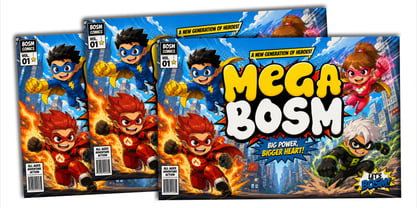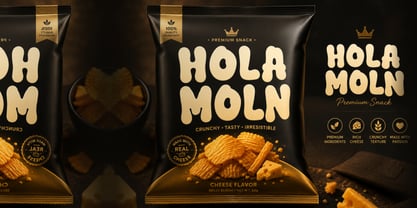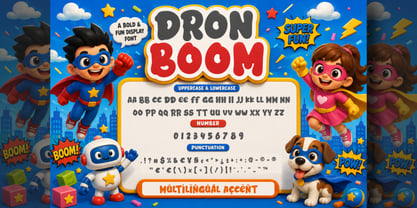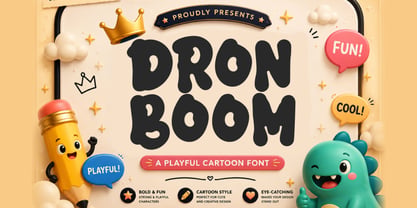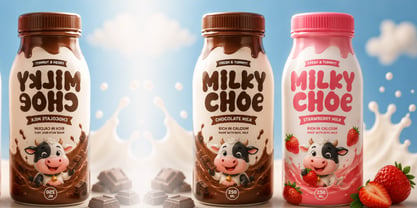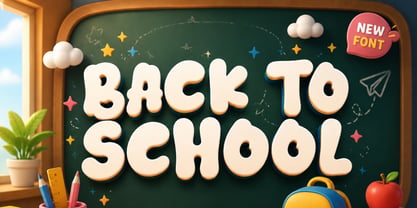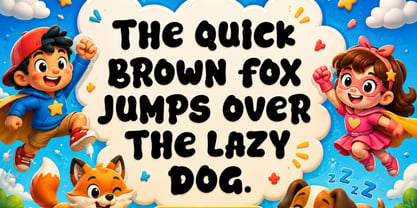
Dron Boom
Dron Boom – Playful Cartoon Font
Dron Boom is a bold Playful Cartoon Font bursting with cheerful personality, chunky letterforms, and irresistible charm. Inspired by animated adventures, children’s storybooks, fun packaging, and playful digital illustrations, this typeface combines soft rounded shapes with a bouncy structure that instantly creates a friendly and energetic visual impact.
Crafted with expressive proportions and smooth organic curves, Dron Boom delivers excellent readability while maintaining a whimsical cartoon appearance. Every character is carefully designed to feel lively, approachable, and full of excitement, making it perfect for designs that need to capture attention with a joyful and imaginative atmosphere.
Its thick playful construction creates a fun, modern, and highly versatile display font suitable for both print and digital media. Whether you’re designing children’s products, educational materials, branding, game titles, YouTube thumbnails, comic covers, or colorful fashion, Dron Boom adds a vibrant cartoon character that makes every project more memorable and engaging.
Key Features :
* Uppercase & Lowercase Characters
* Numerals & Punctuation
* Multilingual Support
* Bold Playful Cartoon Style
* Chunky Rounded Letterforms
* Cute & Friendly Appearance
* Eye-Catching Display Typeface
* Fun Modern Character Design
Suitable For :
* Kids Branding
* Cartoon Logos
* Toy Packaging
* Children’s Books
* Comic Titles
* School Projects
* Educational Materials
* Birthday Invitations
* Game Titles
* YouTube Thumbnails
* Sticker Designs
* Fashion Graphics
* Snack Packaging
* Social Media Graphics
* Creative Display Typography
With Dron Boom – Playful Cartoon Font, every design comes alive with bold energy and cheerful creativity. Its chunky rounded characters, playful proportions, and friendly personality make it the perfect choice for colorful branding, children’s products, entertaining content, fun packaging, and imaginative creative projects.